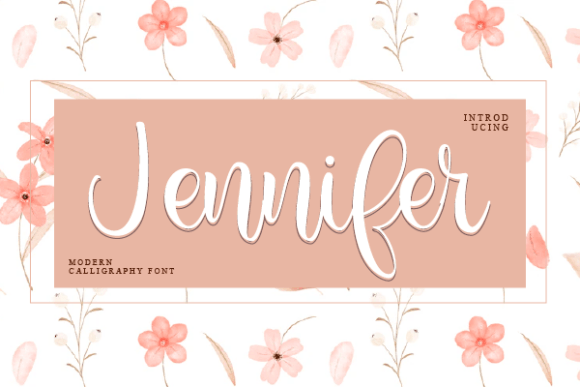
Unleash the Enchantment with Jennifer Font: A Symphony of Grace and Delicacy for Your Creative Expressions
In the realm of typography, Jennifer Font emerges as a captivating script, a testament to elegance and sophistication. Its graceful curves and delicate strokes evoke a sense of timeless beauty, making it an ideal choice for crafting captivating headlines and decorative elements that leave a lasting impression.
Immerse yourself in Jennifer Font's versatility, effortlessly flowing from wedding stationery and invitations to flower shop signage and social media posts. Its enchanting aura adds a touch of refinement to packaging designs, transforming ordinary products into exquisite masterpieces. As spring's essence comes alive, Jennifer Font becomes the perfect companion for capturing the season's charm in your designs.
Step into a world of creative possibilities with Jennifer Font, where your imagination takes center stage. Let its elegant lines guide you as you craft unique and captivating designs that resonate with your audience. Elevate your brand's identity, create eye-catching social media posts, or design stunning T-shirts that make a statement.
Embrace the allure of Jennifer Font and elevate your designs to new heights. Its timeless beauty, versatility, and user-friendly nature make it an indispensable tool for any designer seeking to captivate and inspire. Discover the endless possibilities that await you with Jennifer Font and let your creativity bloom.